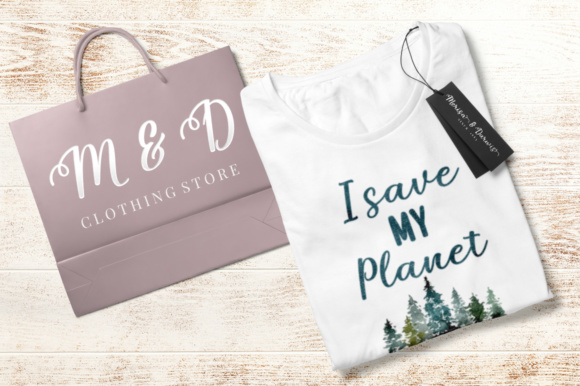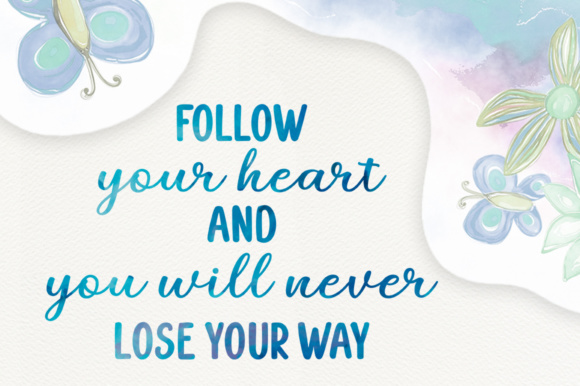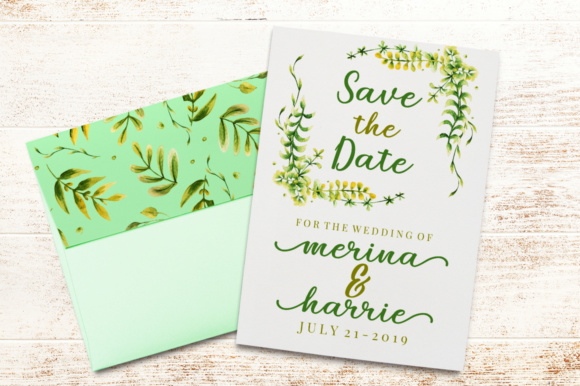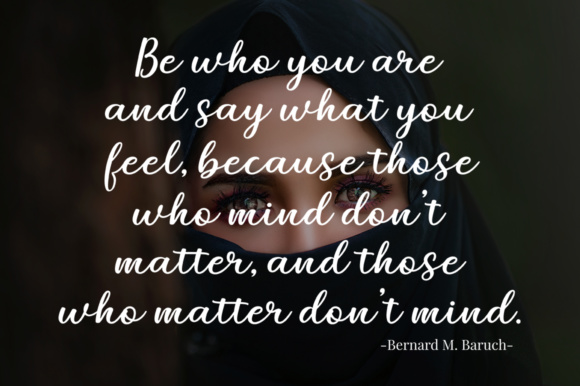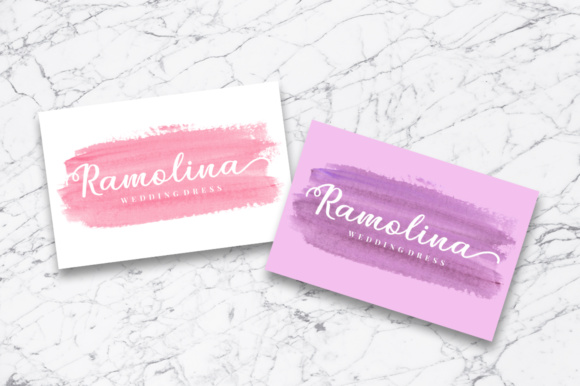
Mareline Duo Font
About Mareline Duo Font
The Mareline is a sweet, hand lettered font duo. It has a casual yet dynamic style and a bold and irregular baseline. The sans and script together make the perfect typographic harmony for all your designs.